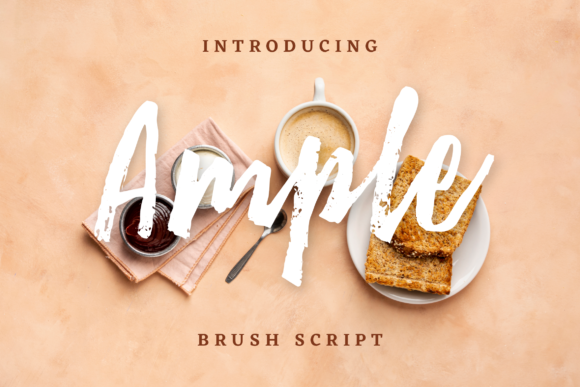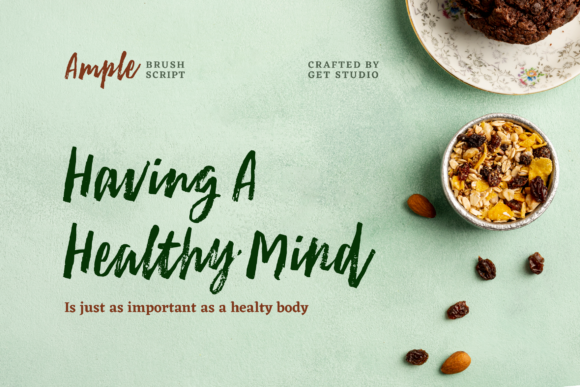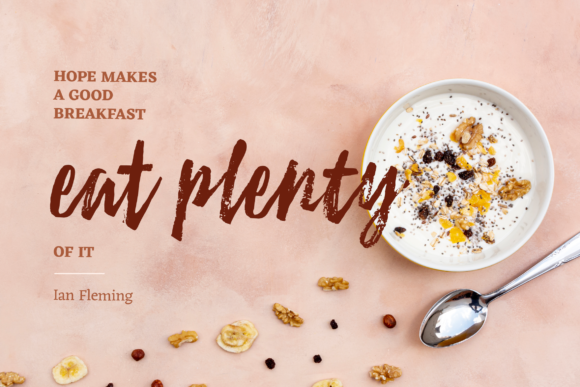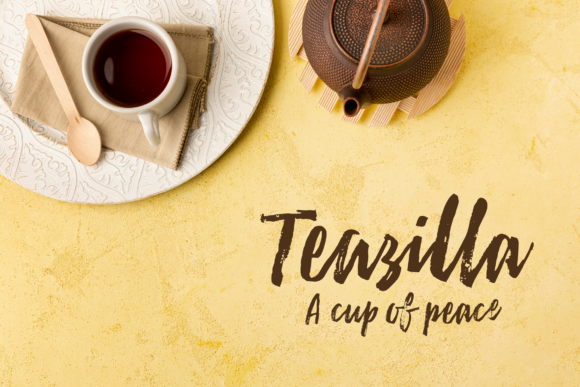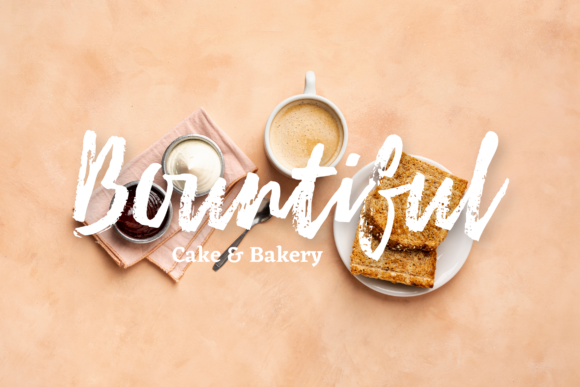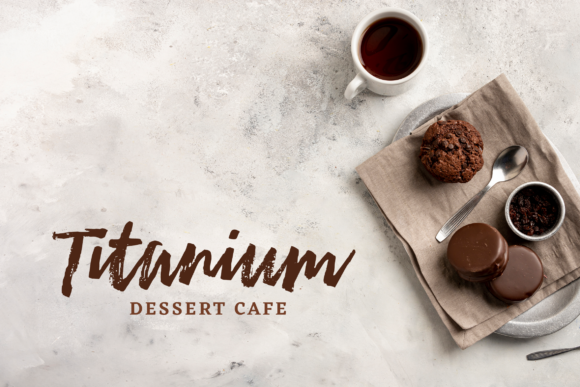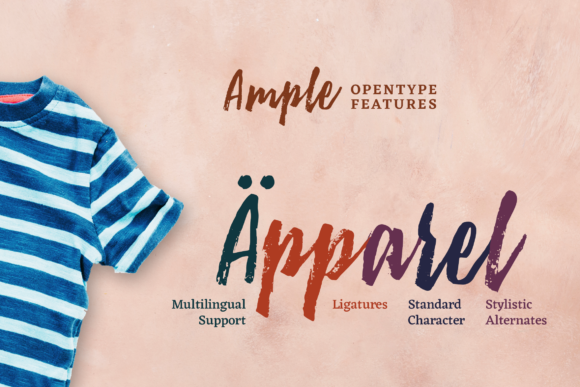
Ample Font
About Ample Font
Ample feels strong and bold, but also elegant. Get inspired by its unique appearance, and turn any design idea into a masterpiece with this gorgeous script!